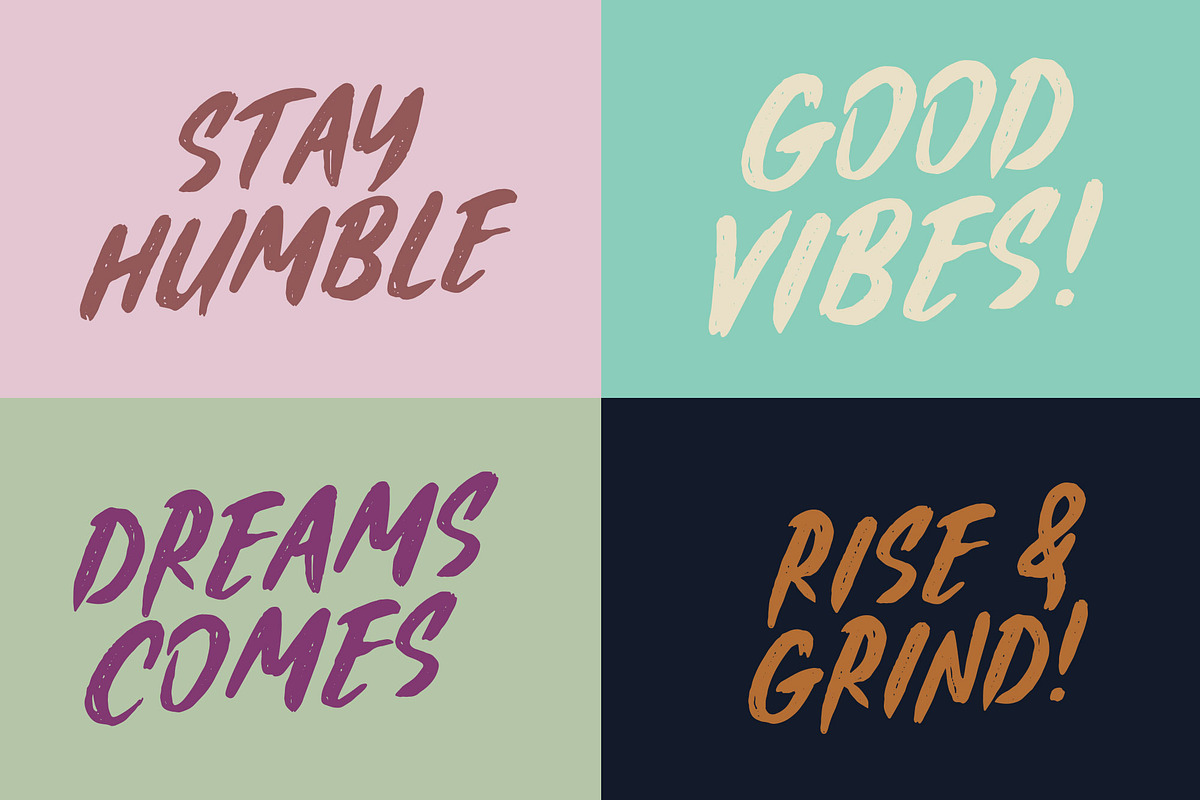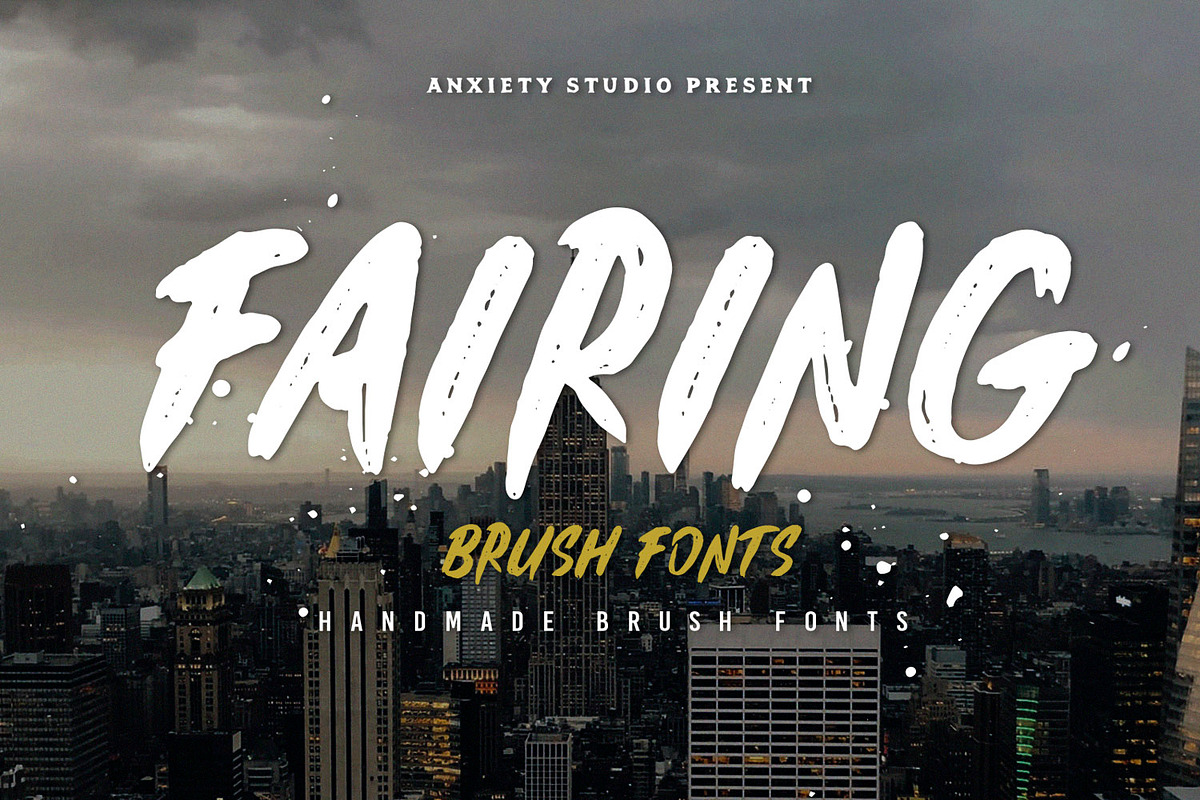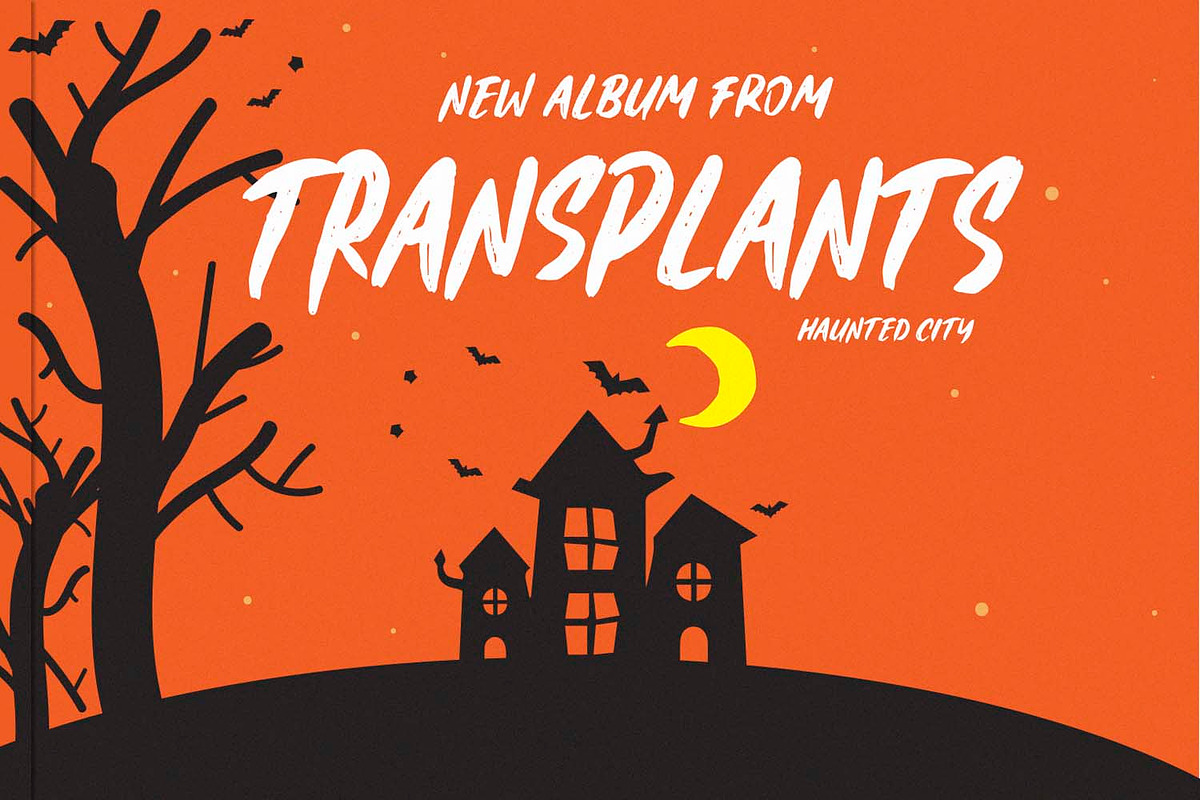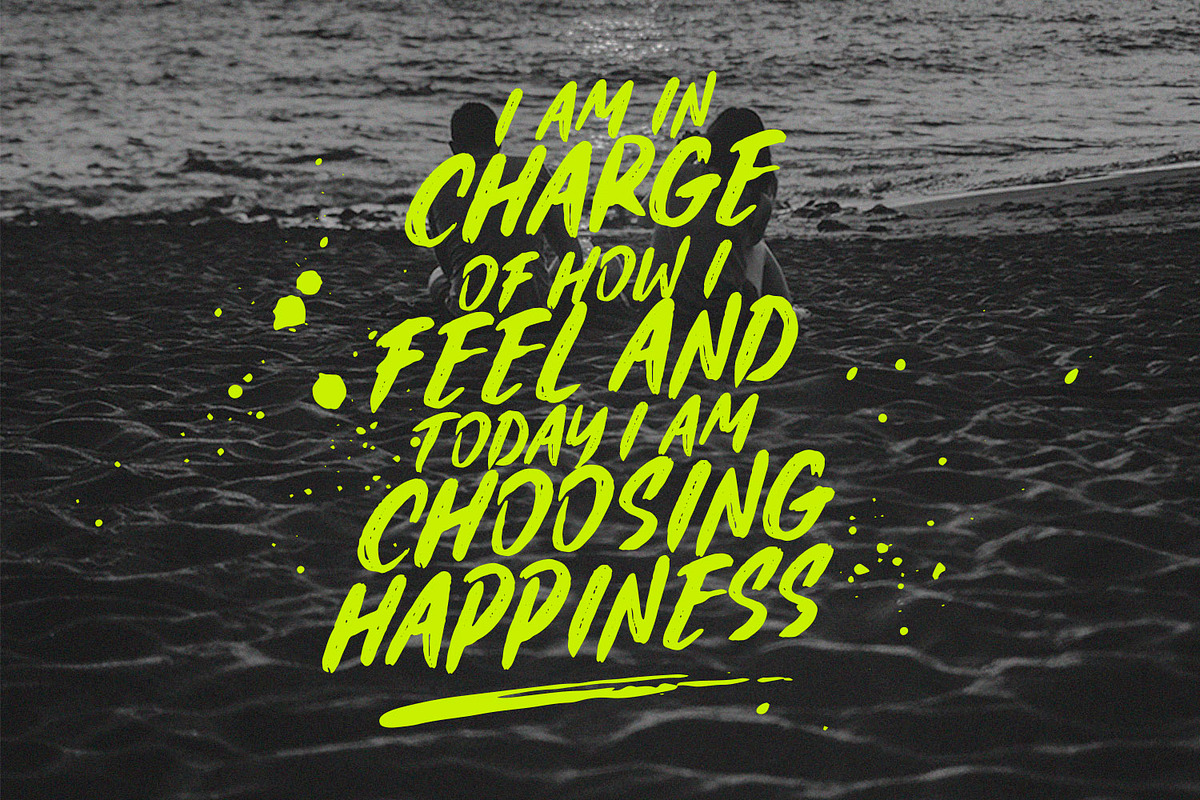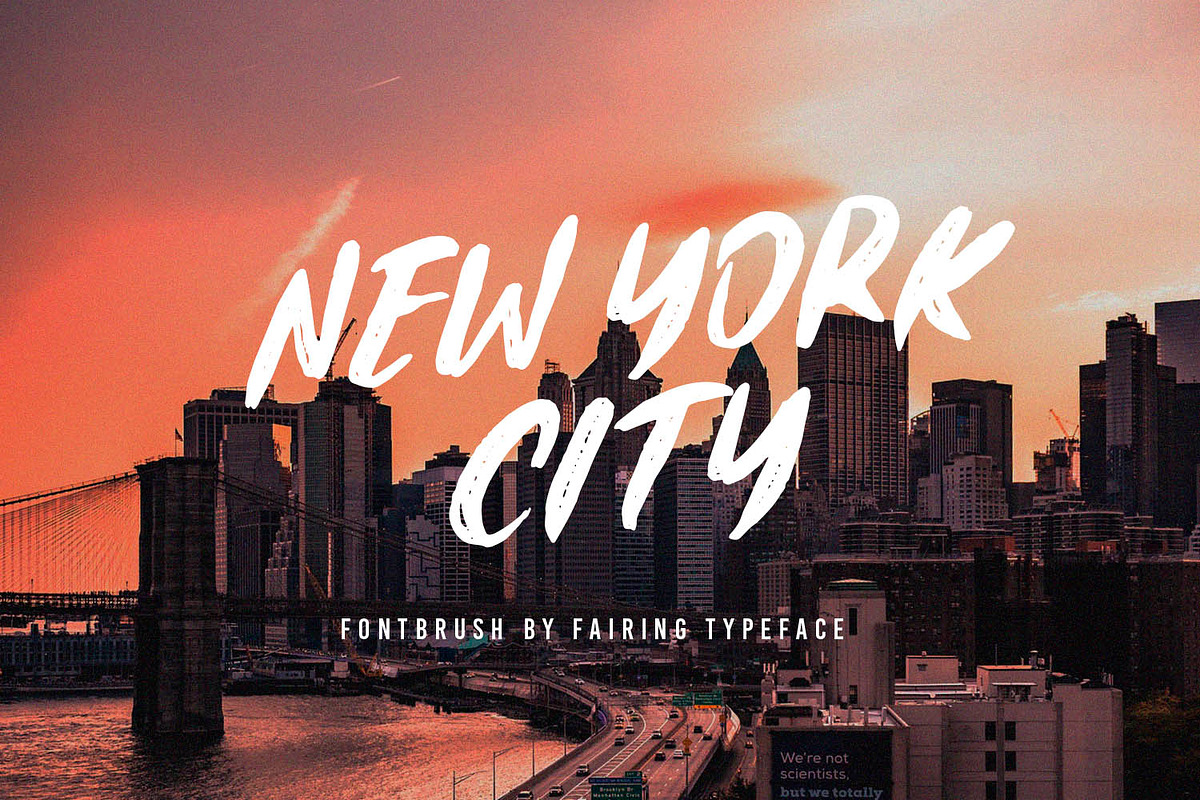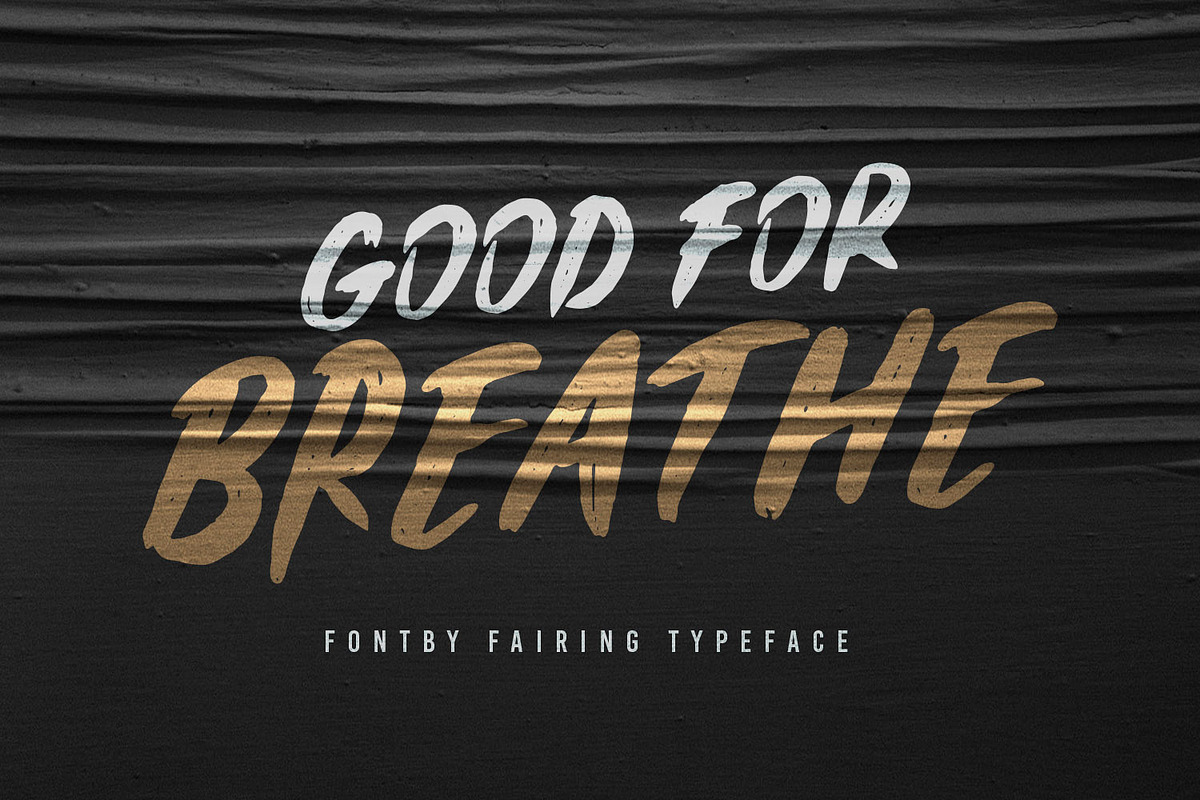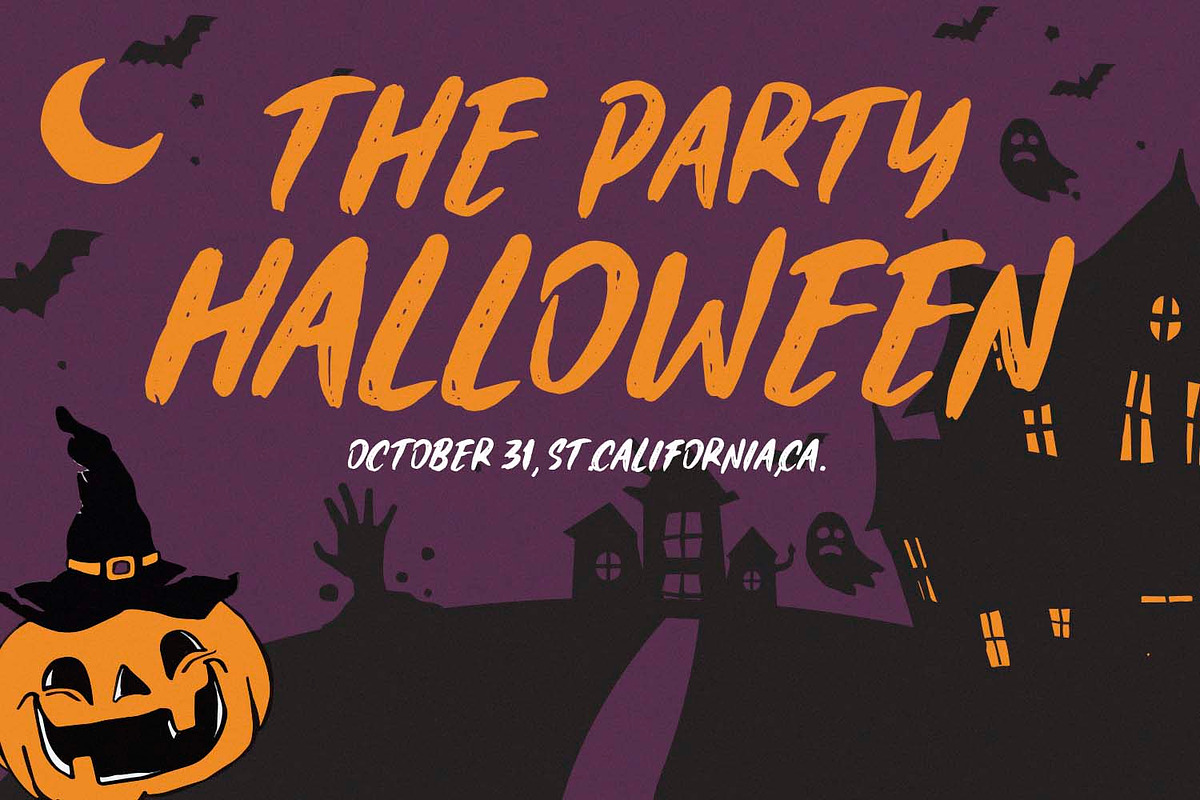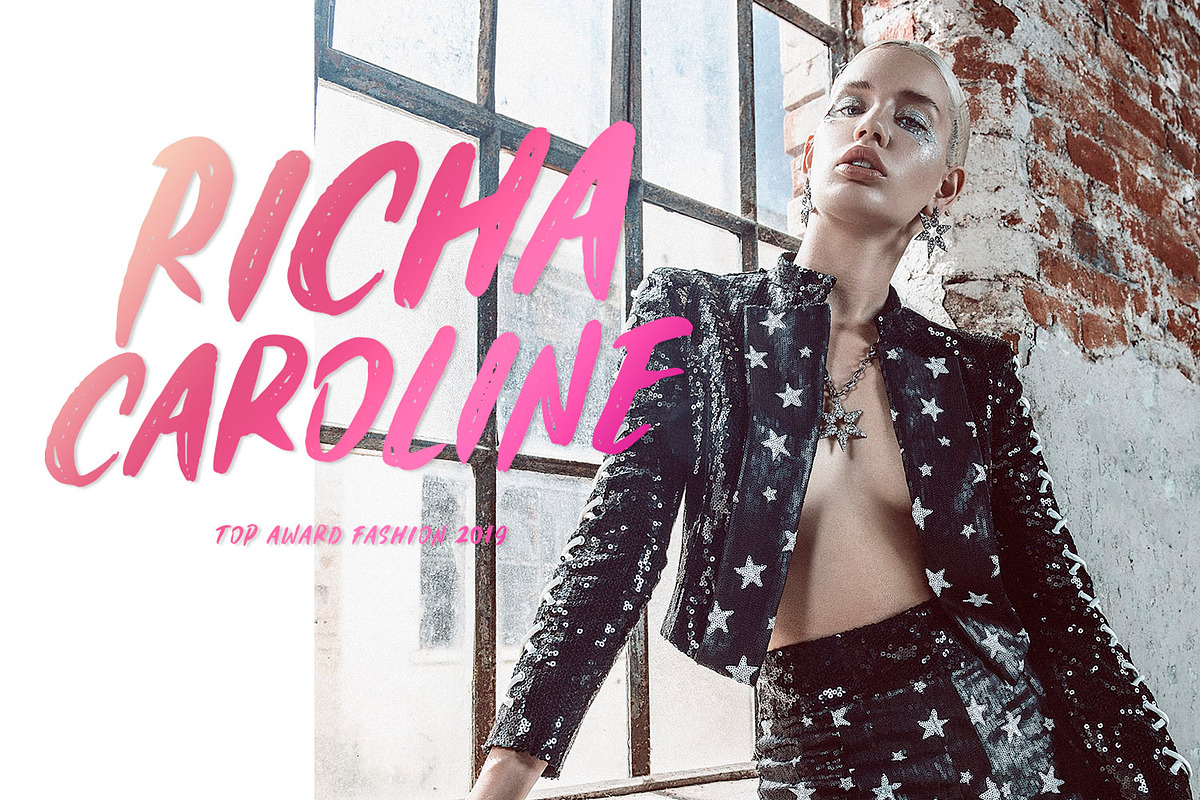
Fairing is a hand-painted font that each character is carefully painted to perfection. detail is maintained when the character is digitized. Thick brush fonts full of energy with extra attention to quick sweeps and sharp details, Fairing is guaranteed to deliver a very loud & fast message; ideal for logos, clothing, quotes, product packaging, whatever you want or anything that requires brush and thick typography.
This font can be paired perfectly, and the Swash collection is very useful and the bonus splatter is suitable for what you want.
Spray / Splatter Brushes - can help you make the texture of the spray paint effect.